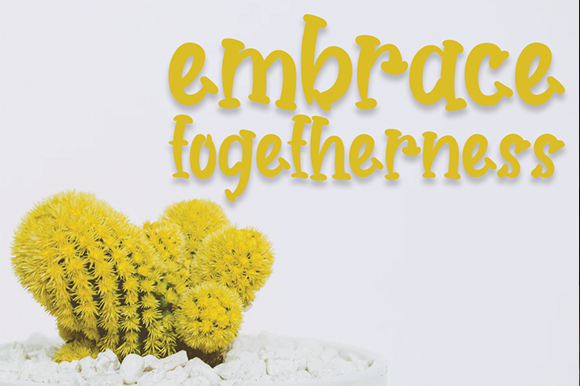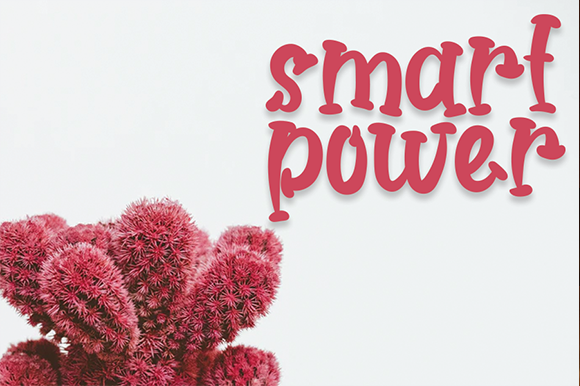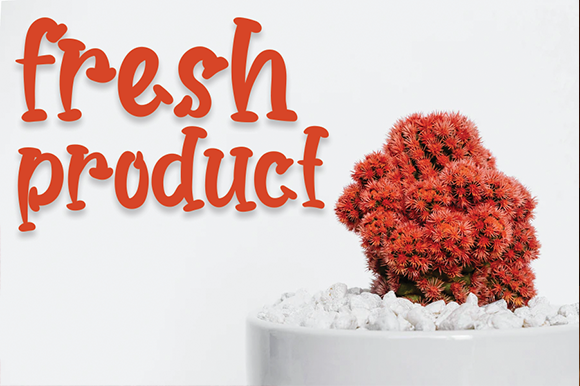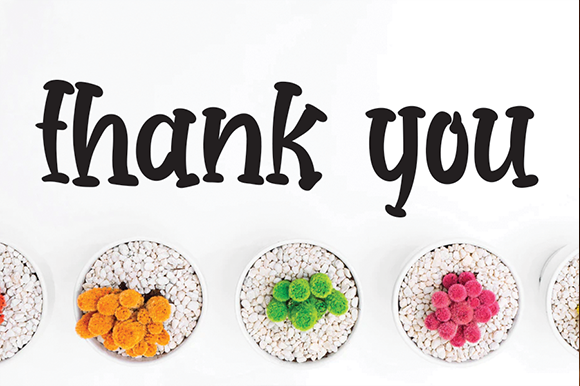
Bollando Font: Elevate Your Designs with Elegance and Friendliness
In the world of typography, fonts play a crucial role in conveying the tone and personality of a design. For designers and crafters seeking a classy and elegant display font with a friendly feel, Bollando is an excellent choice. This versatile font is perfect for a wide range of applications, from wall displays and wedding invitations to social media post logos, advertisements, product packaging, and more.
The Characteristics of Bollando Font
Bollando Font is characterized by its elegant and refined appearance, making it ideal for designs that require a touch of sophistication. Its friendly feel ensures that the font remains approachable and engaging, perfect for designs that aim to connect with their audience on a personal level. The font’s unique blend of classic and modern elements gives it a distinctive look that sets it apart from other display fonts.
Uses of Bollando Font
The versatility of Bollando Font makes it suitable for various design projects, including:
- Wall Displays: Create stunning wall displays with Bollando Font, perfect for showcasing quotes, lyrics, or messages in a stylish and elegant manner.
- Wedding Invitations: Add a touch of sophistication to your wedding invitations with Bollando Font, making your special day even more memorable.
- Social Media Post Logos: Elevate your social media presence with Bollando Font, creating eye-catching logos that reflect your brand’s personality.
- Advertisements: Use Bollando Font to create captivating advertisements that grab attention and leave a lasting impression.
- Product Packaging: Give your products a premium look with Bollando Font, perfect for labels, packaging, and branding materials.
- Product Designs: Incorporate Bollando Font into your product designs, such as mugs, t-shirts, and other merchandise, to add a touch of elegance.
- Labels: Create stylish labels for your products or files with Bollando Font, making them stand out with a classy look.
- Photography: Add a watermark to your photos with Bollando Font, protecting your work while maintaining a professional appearance.
- Invitations or Stationery: Use Bollando Font to create beautiful invitations and stationery, perfect for personal or professional correspondence.
Why Choose Bollando Font?
With so many fonts available, why choose Bollando Font for your designs? Here are a few compelling reasons:
- Unique Style: Bollando Font offers a distinctive style that blends elegance with friendliness, making it perfect for designers seeking a font that stands out.
- Versatility: The font’s versatility ensures it can be used across various design projects, from digital to print materials.
- Easy to Read: Despite its elegant appearance, Bollando Font remains easy to read, making it suitable for designs that require both style and substance.
- Customizable: Bollando Font can be customized to fit your design needs, allowing you to adjust its size, color, and style to match your project’s tone and personality.
Tips for Using Bollando Font Effectively
To get the most out of Bollando Font, consider the following tips:
- Pair with Complementary Fonts: Combine Bollando Font with complementary fonts to create visual interest and hierarchy in your designs.
- Choose the Right Color: Select a color that matches the tone and personality of your design, ensuring the font stands out without overpowering the content.
- Adjust Font Size: Experiment with different font sizes to create emphasis and visual flow in your designs.
- Experiment with Styles: Take advantage of Bollando Font’s customizable features, such as bold, italic, and underline, to add variety to your designs.
Bollando Font is a versatile and elegant display font that can elevate your designs with its classy and friendly feel. With its wide range of applications, from wall displays to product packaging, this font is perfect for designers and crafters seeking a sophisticated and approachable typography solution. By understanding the characteristics, uses, and benefits of Bollando Font, you can create stunning designs that leave a lasting impression on your audience.